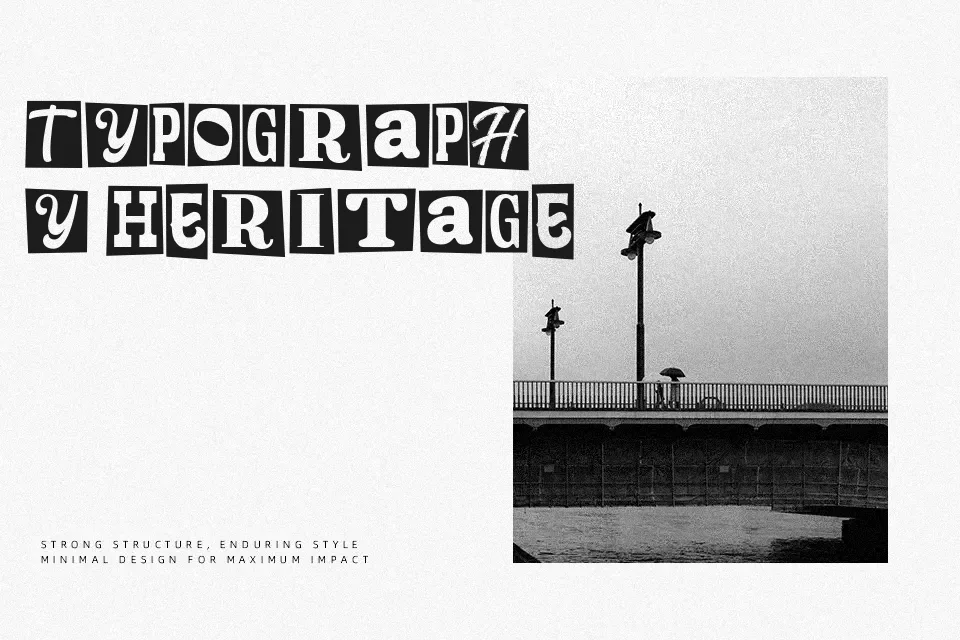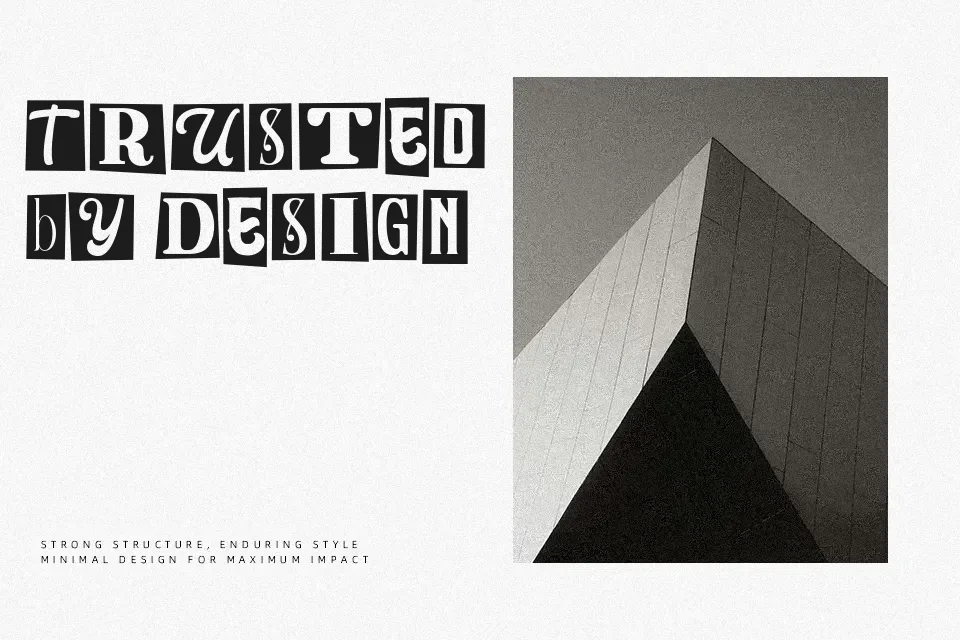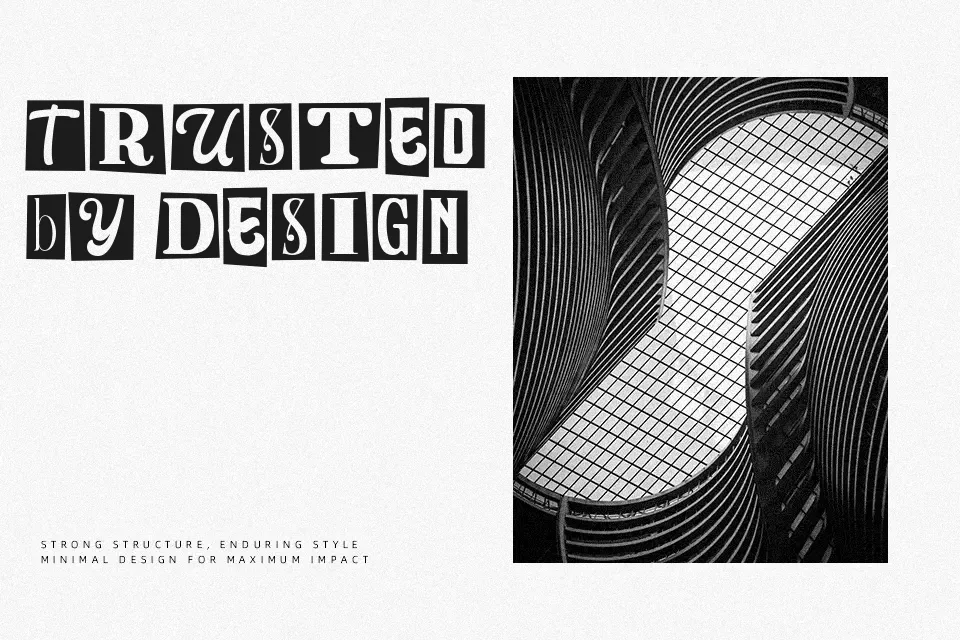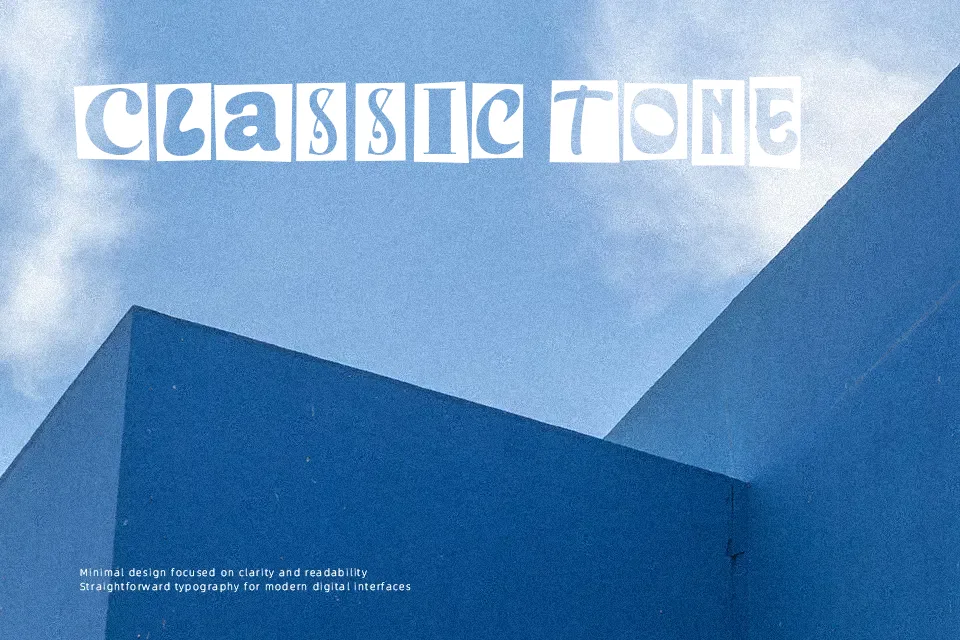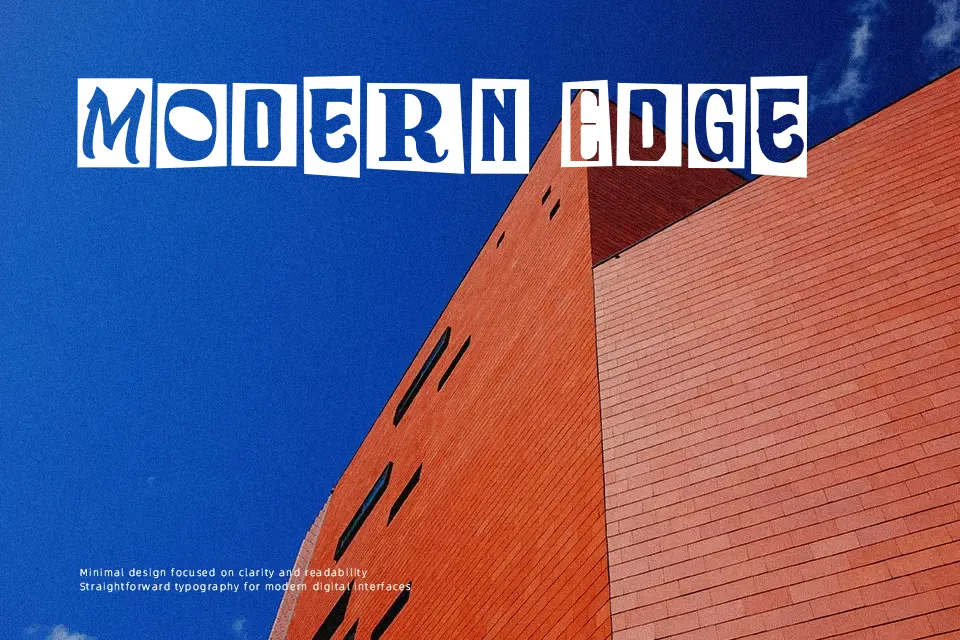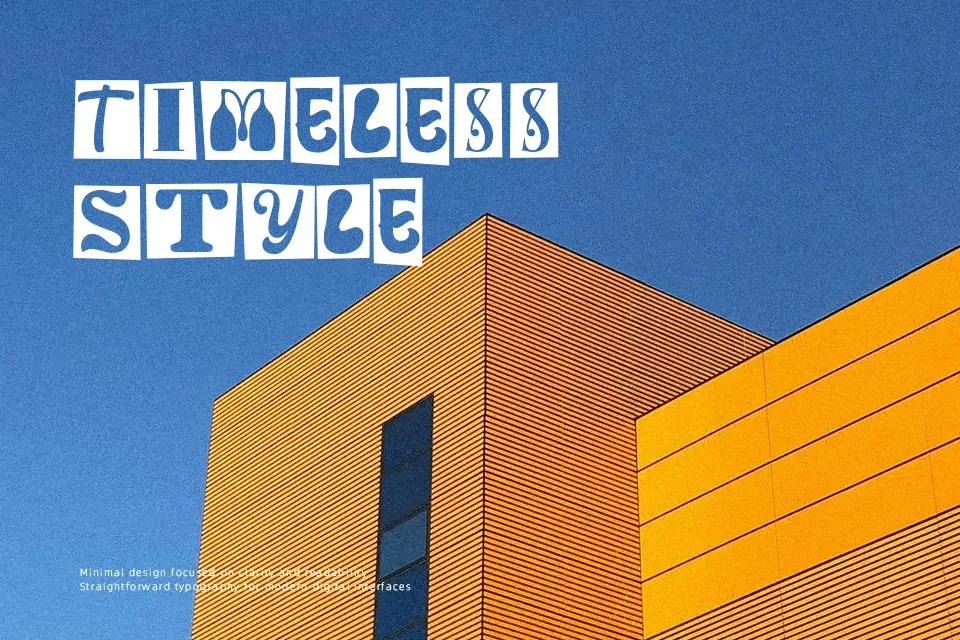
The Ransom Notes Font
The Ransom Notes Font presents an eclectic visual structure defined by raw, collaged characters that alternate dramatically between thick slab strokes and light sans-serif stems. Individual glyphs sit within distinct rectangular frames, producing uneven character widths and deliberate rhythmic tension across words. Spacing remains tightly contained within each cut block, yet total letter spacing feels intentionally disjointed due to mismatched character bounding boxes. The letterforms excel in large-scale packaging, mystery title sequences, and graphic zine covers where chaotic contrast commands immediate attention. However, this fragmented aesthetic significantly impairs continuous reading comfort, making the typeface impractical for multi-line paragraphs or compact interface labels.
Best For: horror film title cards, punk rock album covers, mystery event posters, edgy merchandise packaging
Not Ideal For: continuous book body copy, mobile interface labels, legal contracts, dense spreadsheet tables
Perfect for film, headline, and music, with a dark and decorative style.